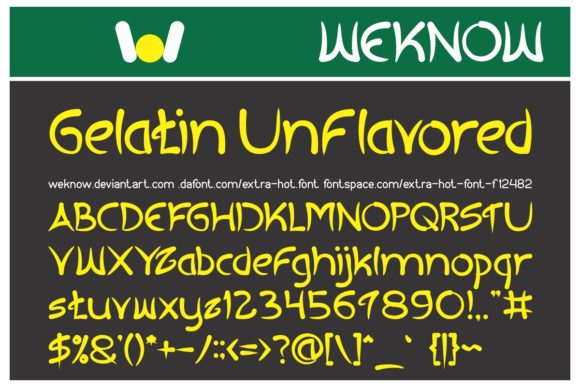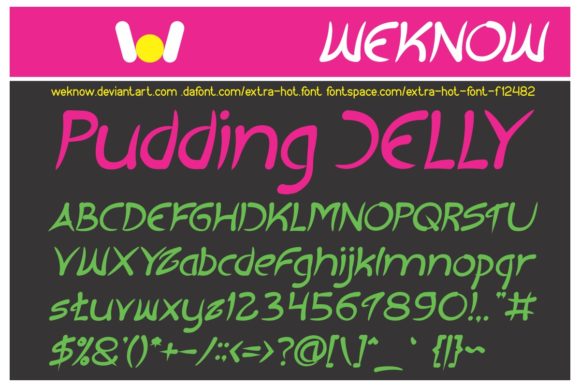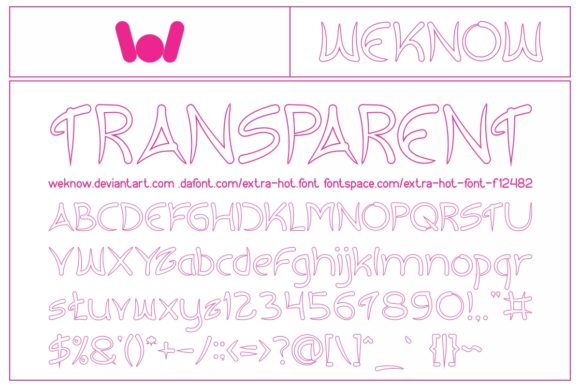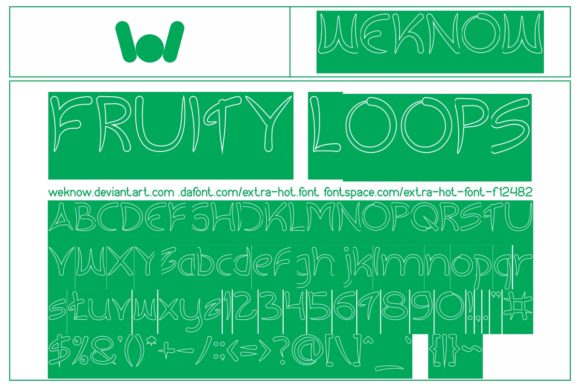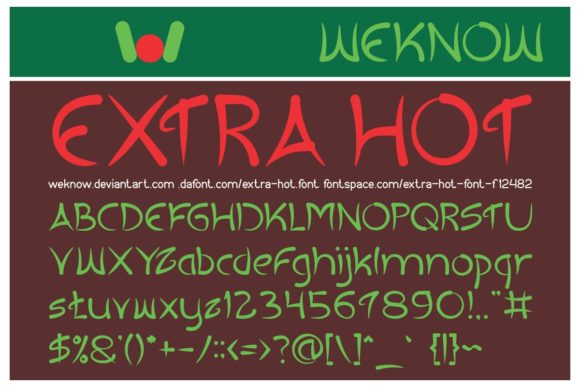
Introducing Extra Hot Font: The Ultimate Display Font for Creative Minds
Are you tired of using the same old fonts for your creative projects? Look no further! Extra Hot Font is a game-changing display font that’s about to take your designs to the next level. With its unique and interesting style, this font is sure to make your ideas stand out from the crowd.
What Makes Extra Hot Font So Special?
Extra Hot Font is a one-of-a-kind display font that’s designed to add a touch of excitement to your creative projects. Its bold and eye-catching style makes it perfect for headlines, titles, and other design elements that need to grab attention. Whether you’re a designer, crafty DIY enthusiast, or social media influencer, this font is sure to elevate your visual content and make it more engaging.
Key Features of Extra Hot Font
- Unique and Interesting Style: Extra Hot Font boasts a distinctive style that’s unlike any other font out there. Its bold and edgy design makes it perfect for creating eye-catching headlines and titles.
- High-Quality Design: This font is designed with high-quality craftsmanship in mind. Each letter is carefully crafted to ensure that it’s clear, readable, and visually appealing.
- Versatile: Extra Hot Font is incredibly versatile and can be used for a wide range of creative projects, from posters and flyers to social media graphics and website headers.
- Easily Customizable: With Extra Hot Font, you can easily customize the font size, color, and style to fit your design needs.
How to Use Extra Hot Font in Your Designs
Ideas for Using Extra Hot Font
- Create Eye-Catching Headlines: Use Extra Hot Font to create bold and eye-catching headlines for your blog posts, articles, and social media graphics.
- Design Stunning Posters and Flyers: This font is perfect for creating posters and flyers that need to grab attention. Use it to highlight important information or create bold titles.
- Make Your Social Media Graphics Pop: Add Extra Hot Font to your social media graphics to make them more engaging and eye-catching.
- Enhance Your Website Header: Use Extra Hot Font to create a bold and eye-catching website header that sets the tone for your brand.
Tips for Getting the Most Out of Extra Hot Font
- Experiment with Different Colors: Try out different colors to see what works best with Extra Hot Font. You can use bright and bold colors to create a statement or more muted tones to create a sophisticated look.
- Play with Font Sizes: Experiment with different font sizes to create visual interest and hierarchy in your designs.
- Combine with Other Fonts: Try pairing Extra Hot Font with other fonts to create a unique and interesting look.
Extra Hot Font is a game-changing display font that’s perfect for designers, crafty DIY enthusiasts, and social media influencers. With its unique and interesting style, this font is sure to make your creative projects stand out from the crowd. So why wait? Download Extra Hot Font today and take your designs to the next level!